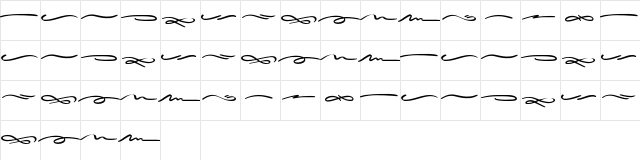
Sieroty Swash Regular Font Preview
Sieroty Swash Regular
Sieroty Swash Regular Font Details
Design Context for Sieroty Swash Typeface
Sieroty Swash flows with the natural rhythm of handwritten lettering, making it ideal for designs that call for warmth and personal expression.
Font Pairing: Combine Sieroty Swash with a simple geometric sans for maximum contrast — the tension between flowing curves and clean structure is a classic typographic pairing.
Pro Tip: Pair Sieroty Swash with a clean sans-serif for supporting text. The contrast between fluid script and geometric structure creates an elegant typographic hierarchy.